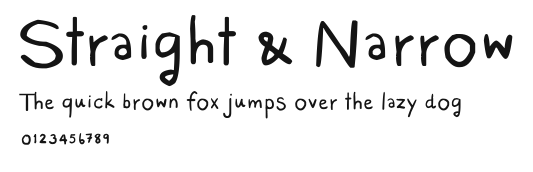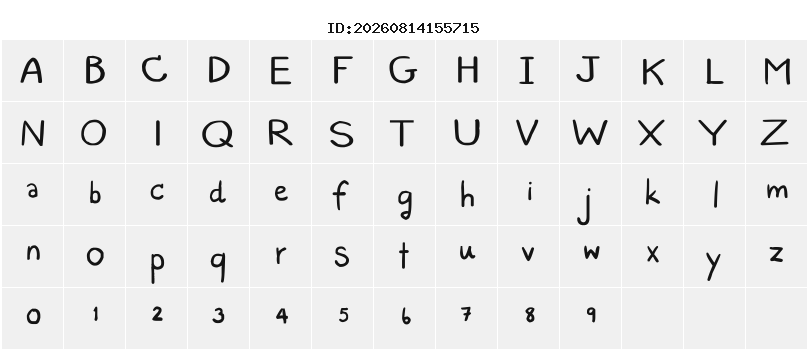
Straight & Narrow.ttf is a modern, elegant sans-serif font designed for ultimate readability and visual harmony. Perfect for branding, headlines, web design, and print materials.